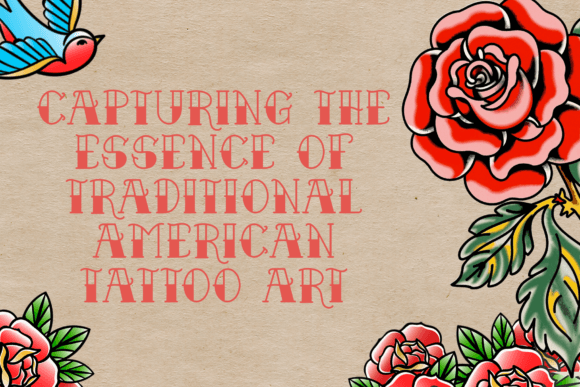
Brothers Olders Font
Brothers Olders is a vintage tattoo display that showcases classic tattoo designs. It features bold, timeless artwork inspired by traditional styles, highlighting intricate details and old-school imagery.